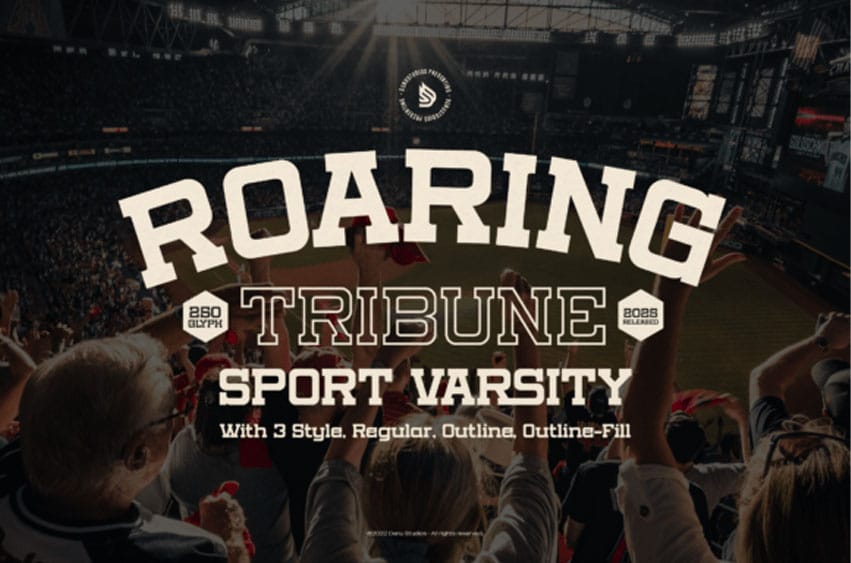
Roaring Tribune Font is a bold and powerful varsity-style font that echoes the energy of stadium cheers and championship glory.
With three distinct styles—Regular, Outline, and Outline-Fill—this typeface is built for sports branding, athletic merch, team logos, school spirit designs, and event posters.
Featuring over 250 glyphs, Roaring Tribune brings a bold, collegiate edge to your typography.